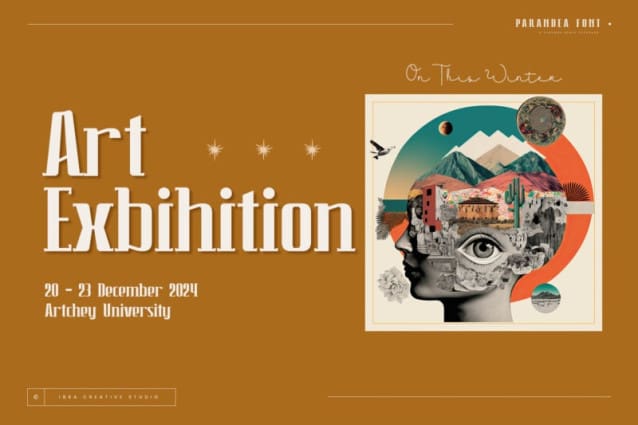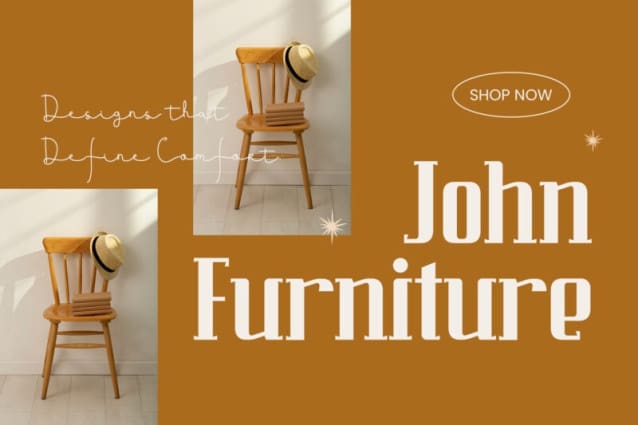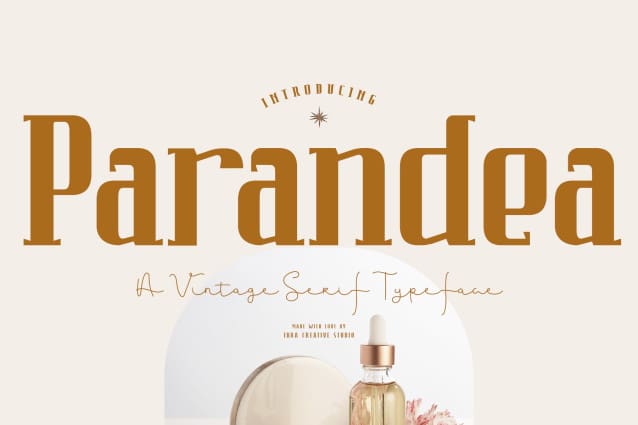
Parandea Font
Parandea Font, a vintage serif typeface, seamlessly blends the essence of bygone eras with a touch of modern sophistication. Each letter in Parandea Font exudes timeless charm, featuring elegant serifs and fine details that harken back to the craftsmanship of vintage typography. The typeface’s well-balanced proportions and graceful curves evoke a sense of nostalgia, making it a perfect choice for projects that demand a classic and refined aesthetic. Parandea’s versatility shines through, whether it’s used for branding, editorial design, or any application where a touch of vintage character is desired. With its distinctive yet understated elegance, Parandea captures the spirit of the past while maintaining a contemporary allure.